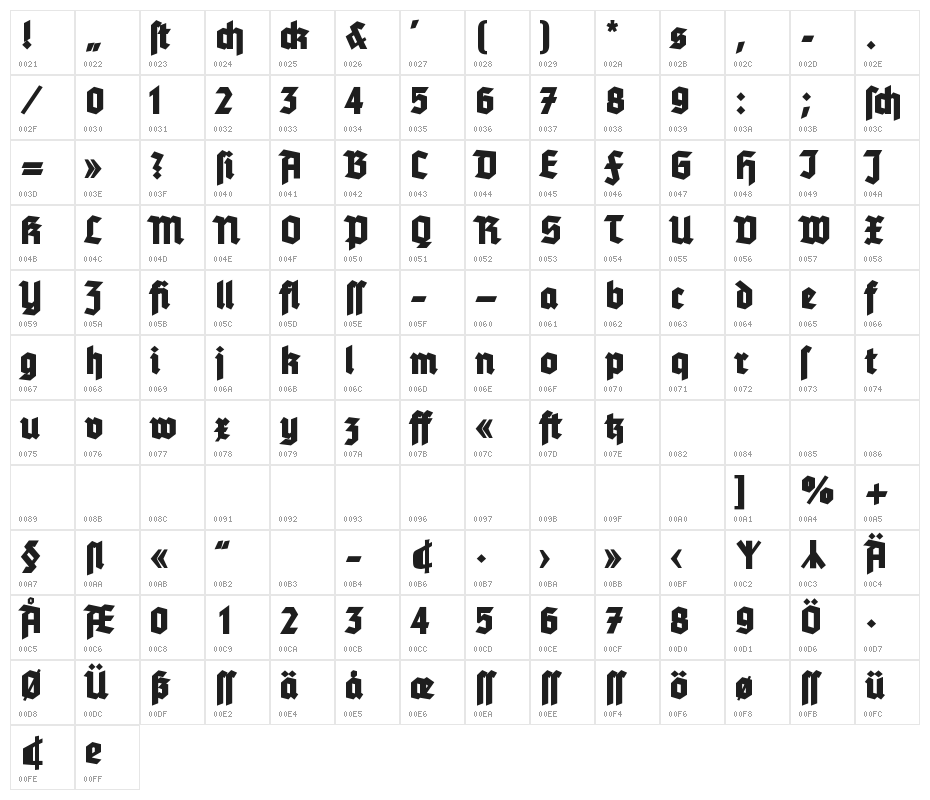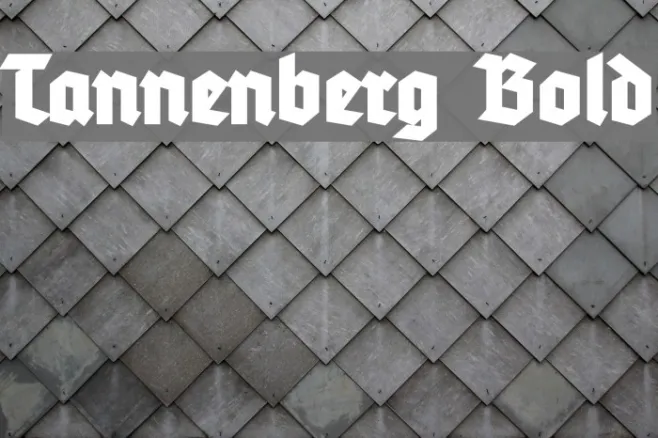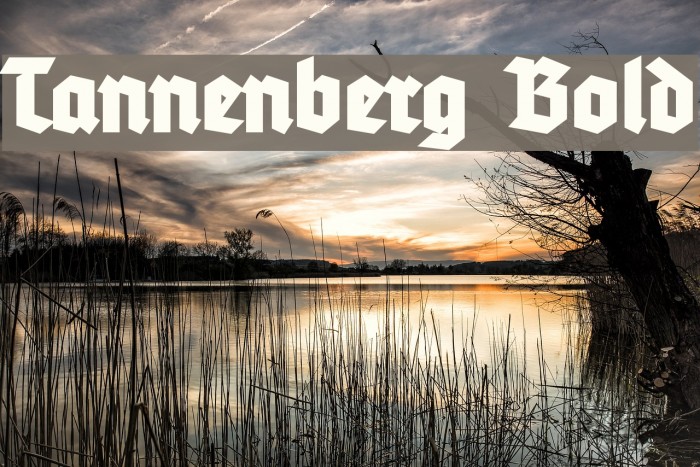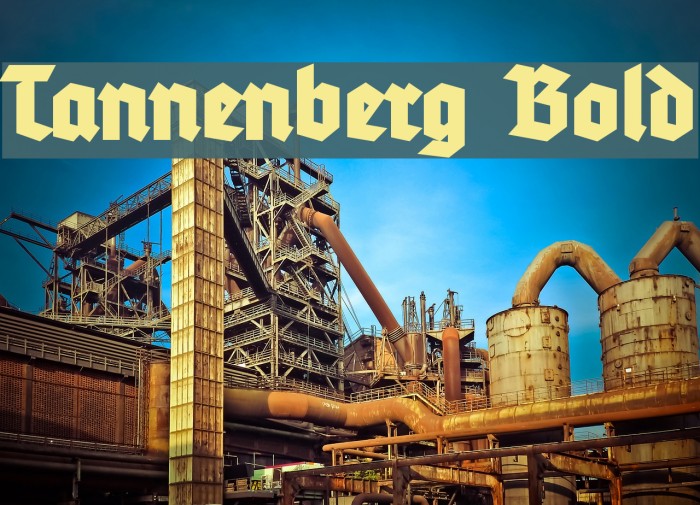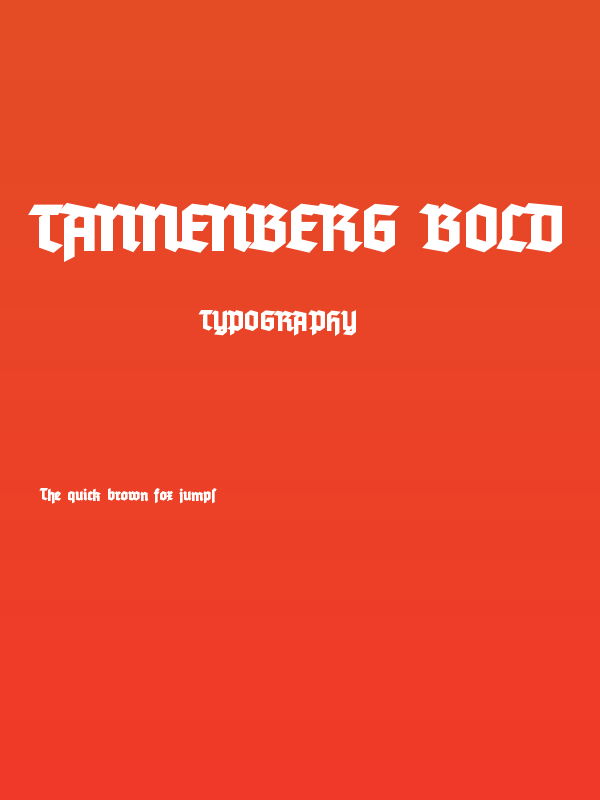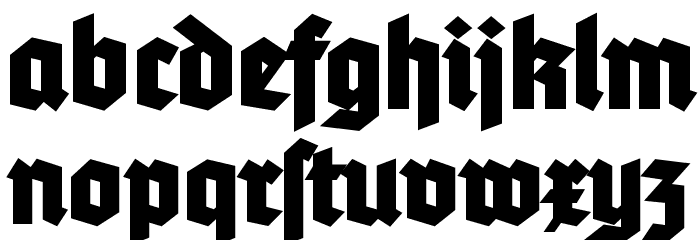
Tannenberg Bold Font
Tannenberg Bold Description
This font features a bold, angular design reminiscent of traditional Blackletter styles, characterized by its sharp, pointed edges and strong vertical emphasis. The uppercase and lowercase letters maintain a consistent geometric structure, creating a cohesive and impactful appearance. The numerals and special characters follow the same stylistic cues, ensuring uniformity across all glyphs. This font's boldness and historical aesthetic make it suitable for projects that require a dramatic and authoritative presence.
| Proposed Projects | Ideal for historical or medieval-themed designs, such as posters, book covers, or branding for breweries and pubs. |